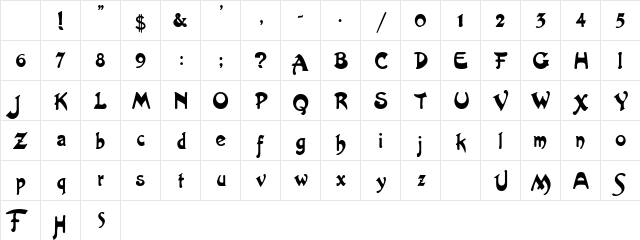
Artistix Regular Free Font
Artistix Regular
Design Context for Artistix
Artistix is a composed and adaptable typeface that performs quietly and consistently across a wide range of design contexts.